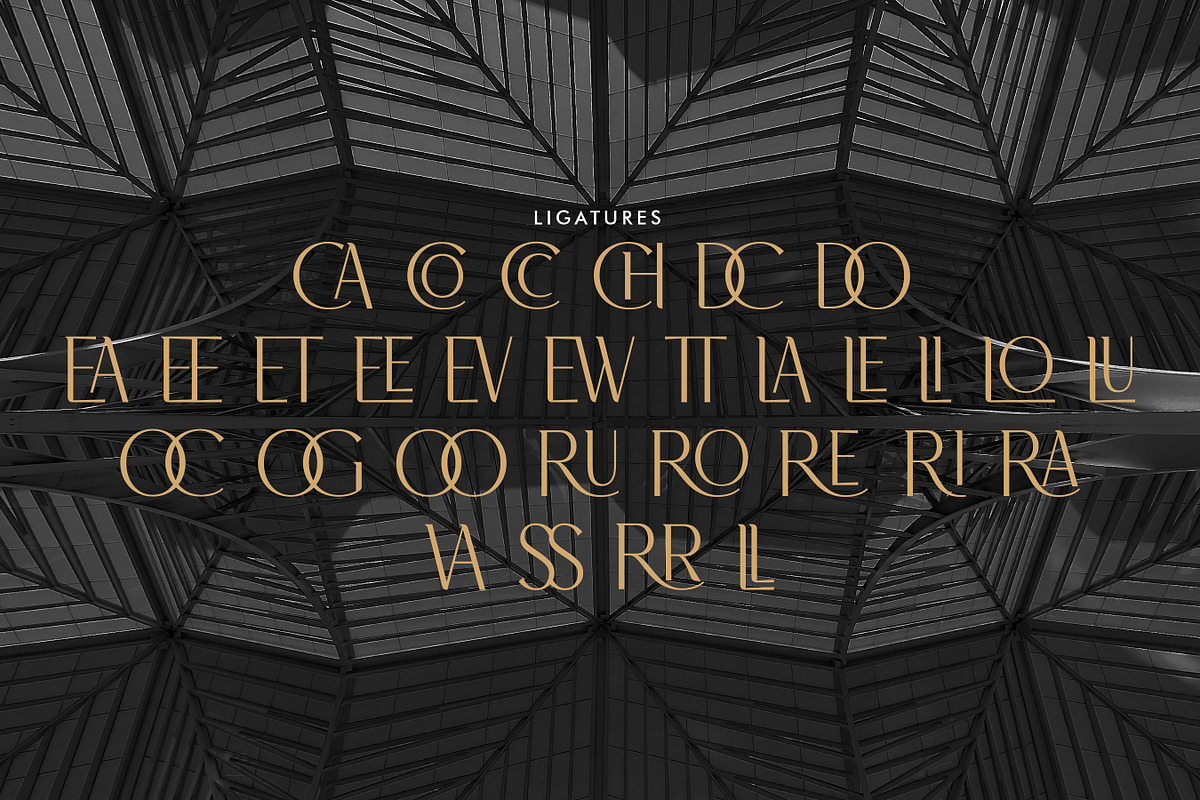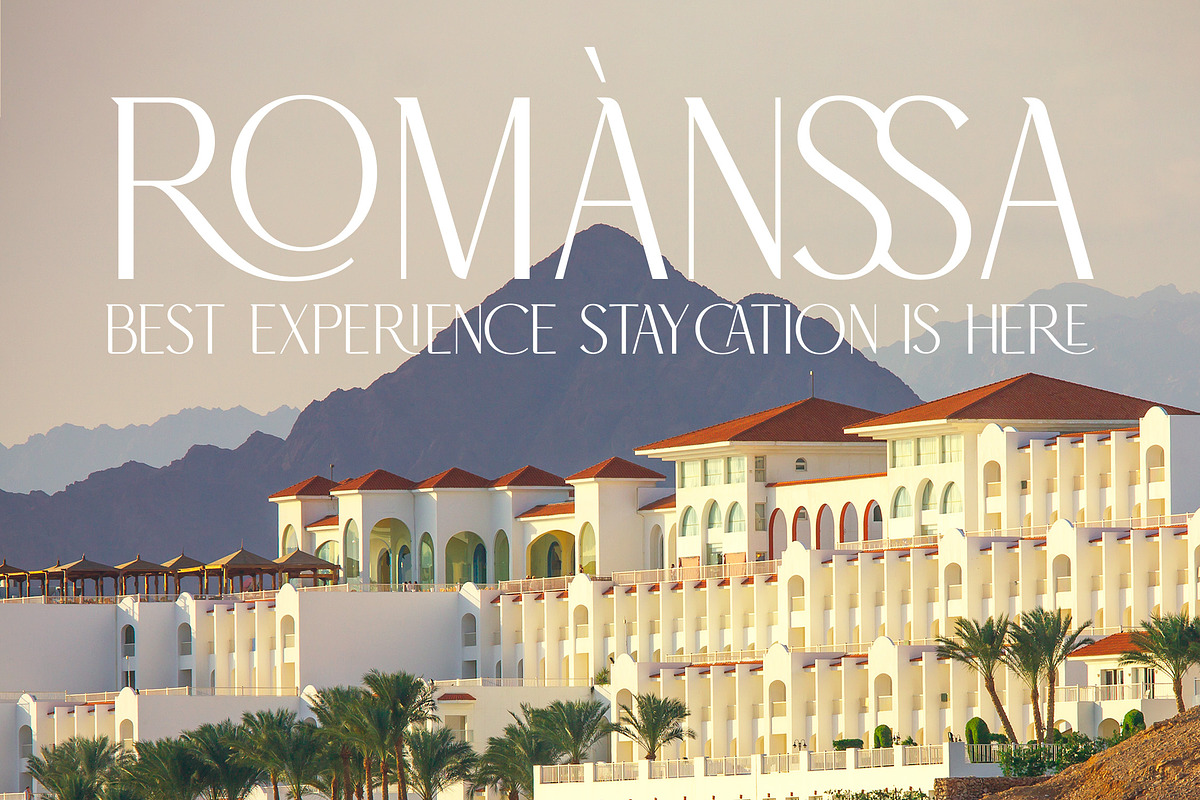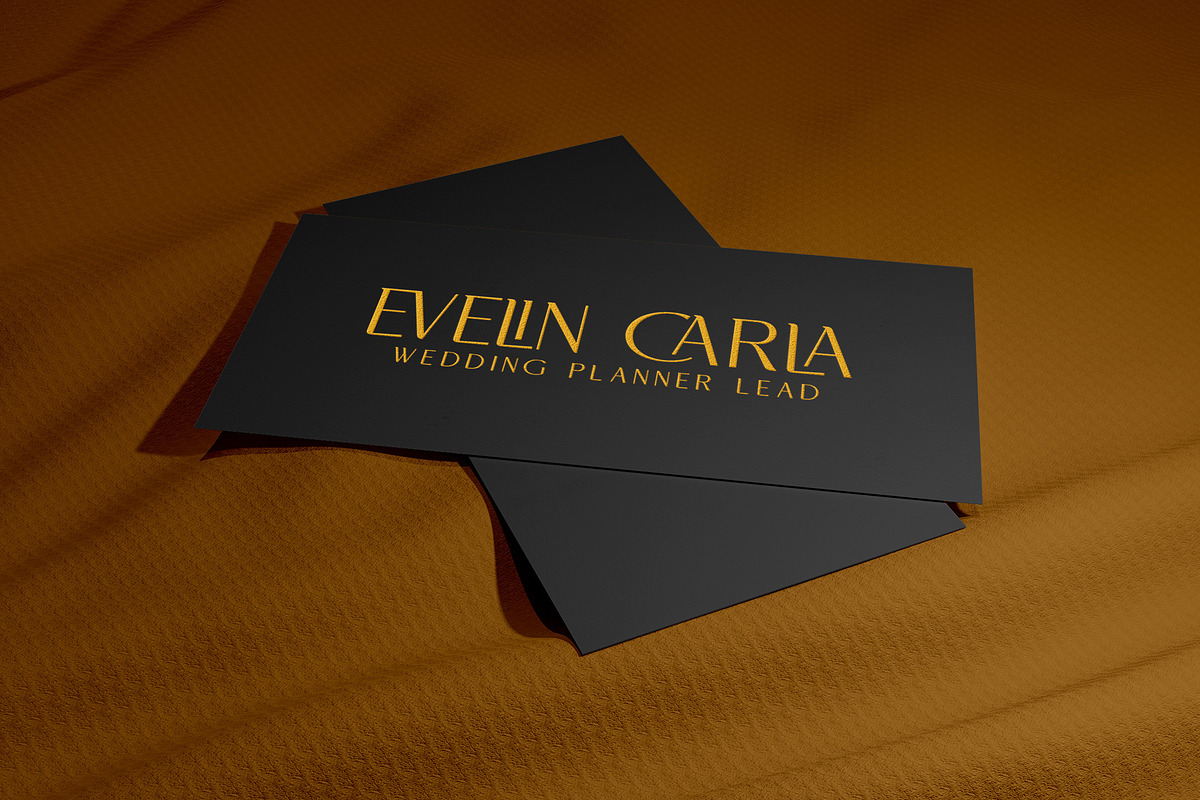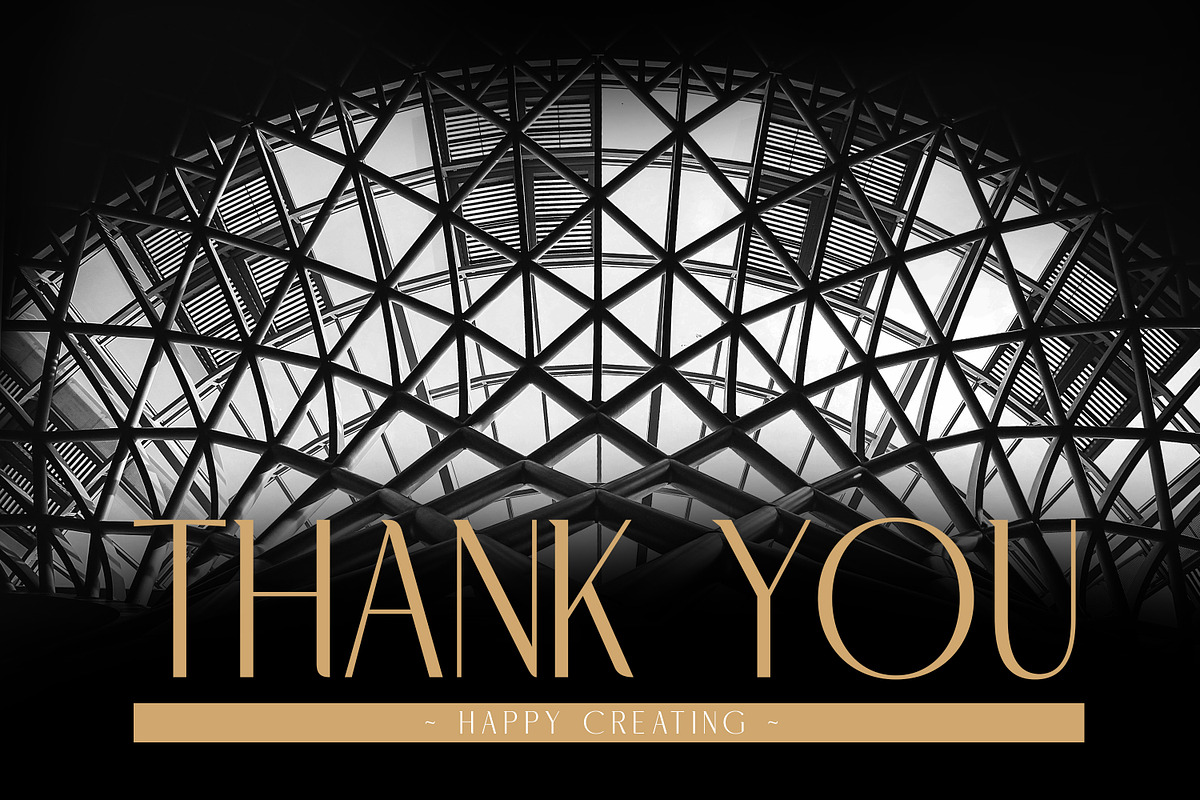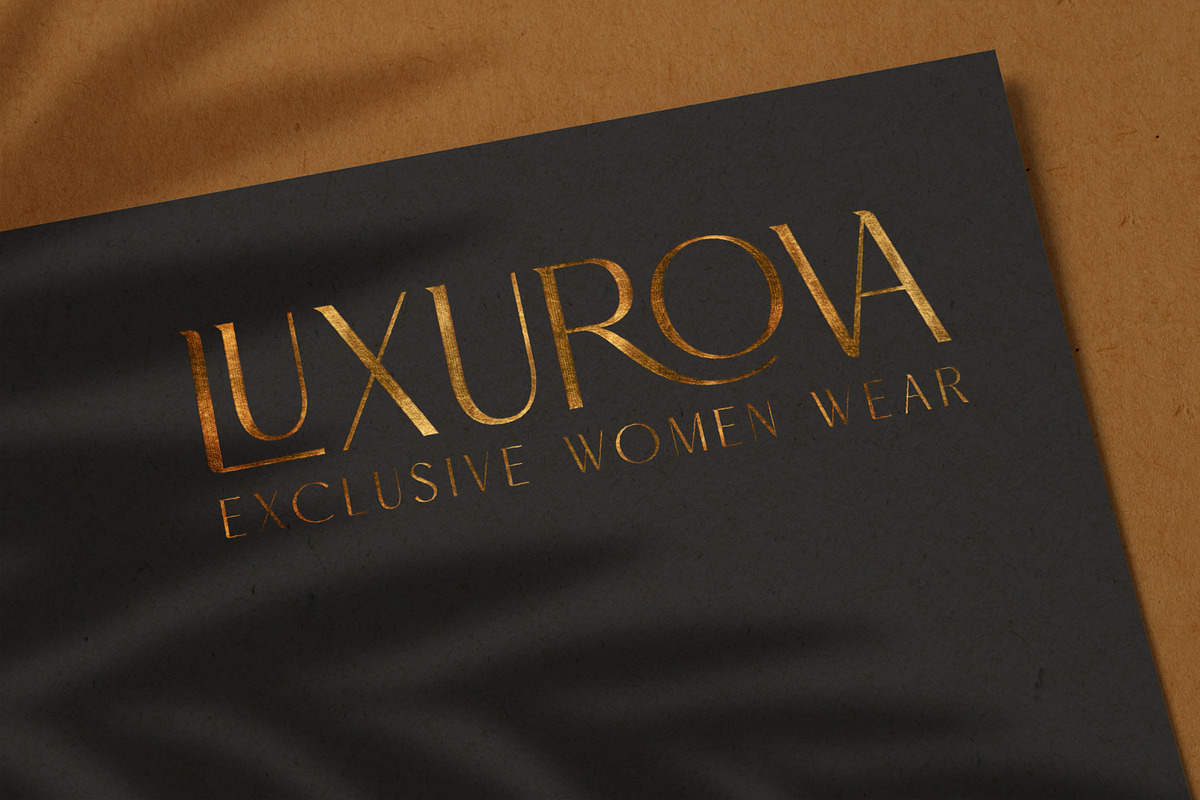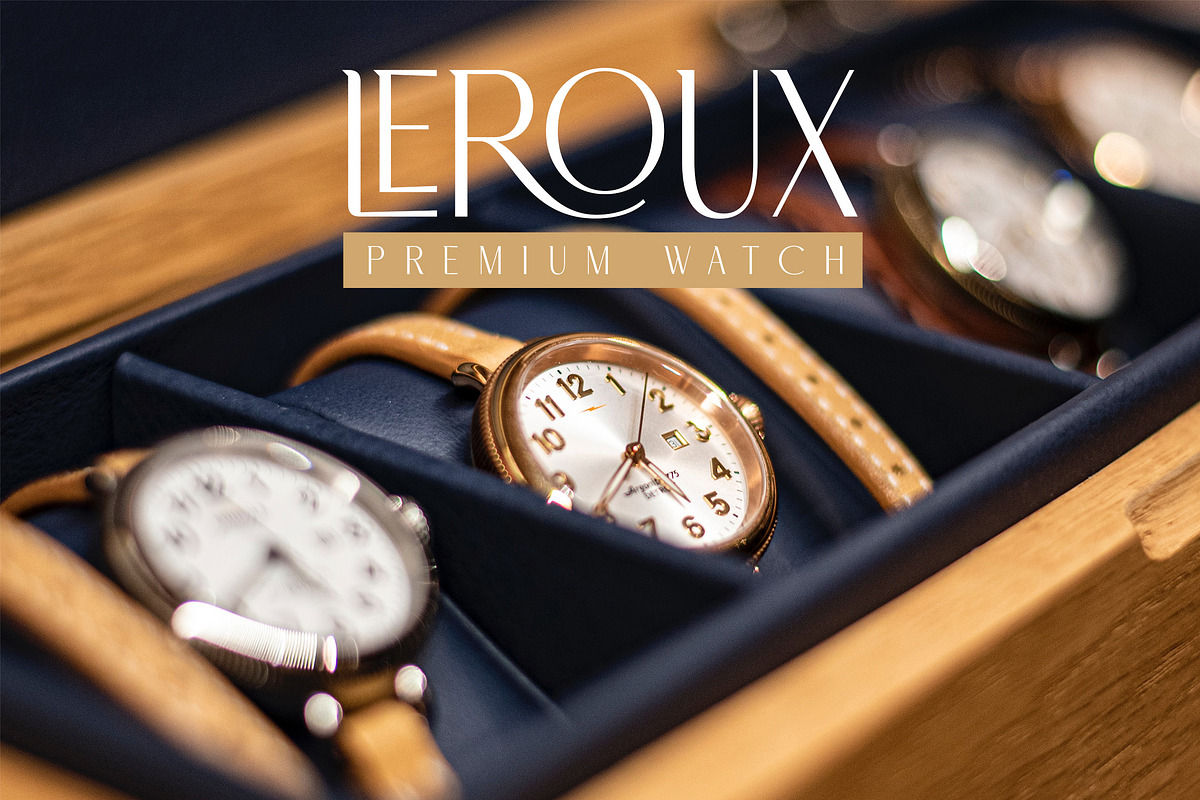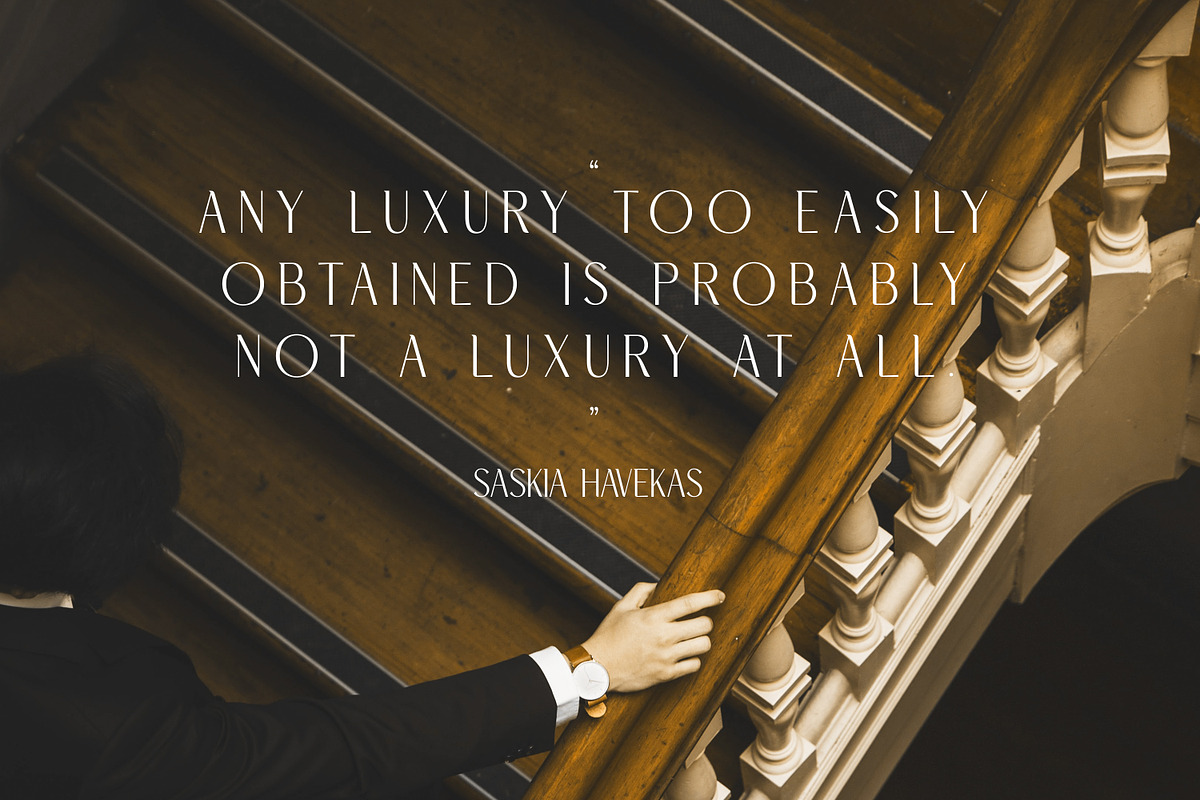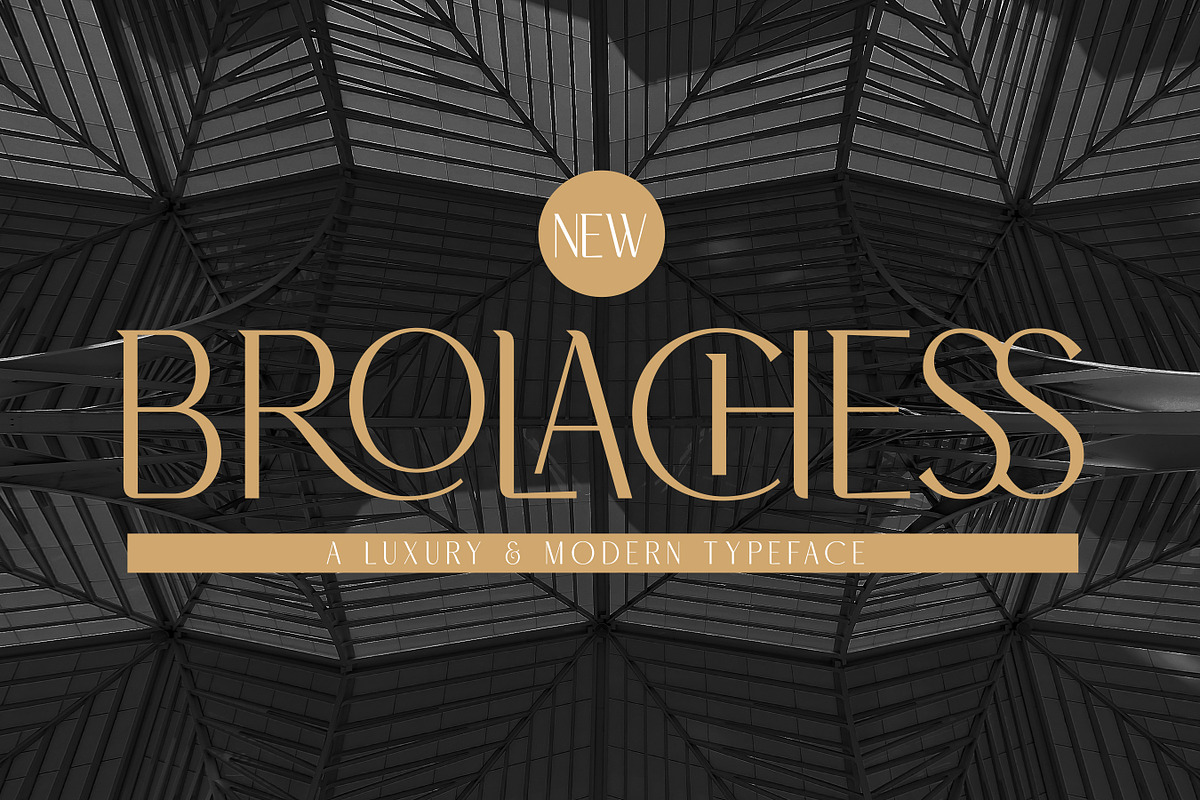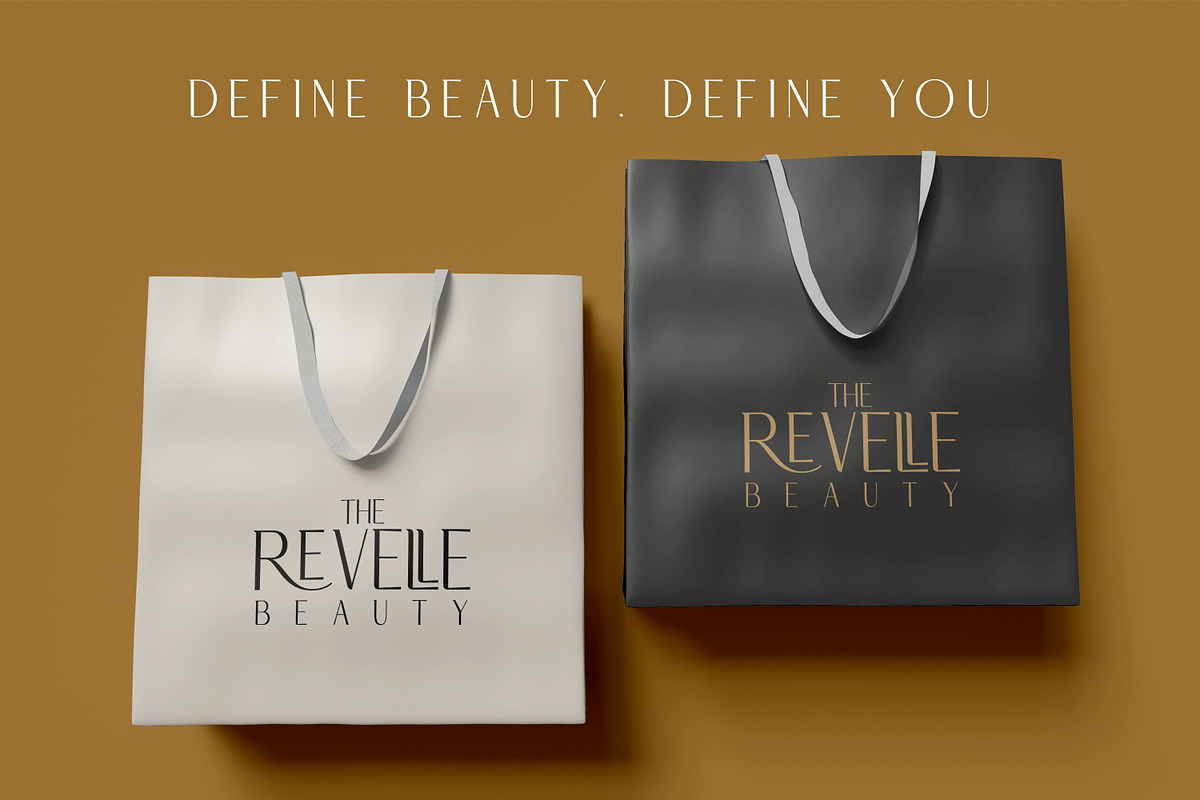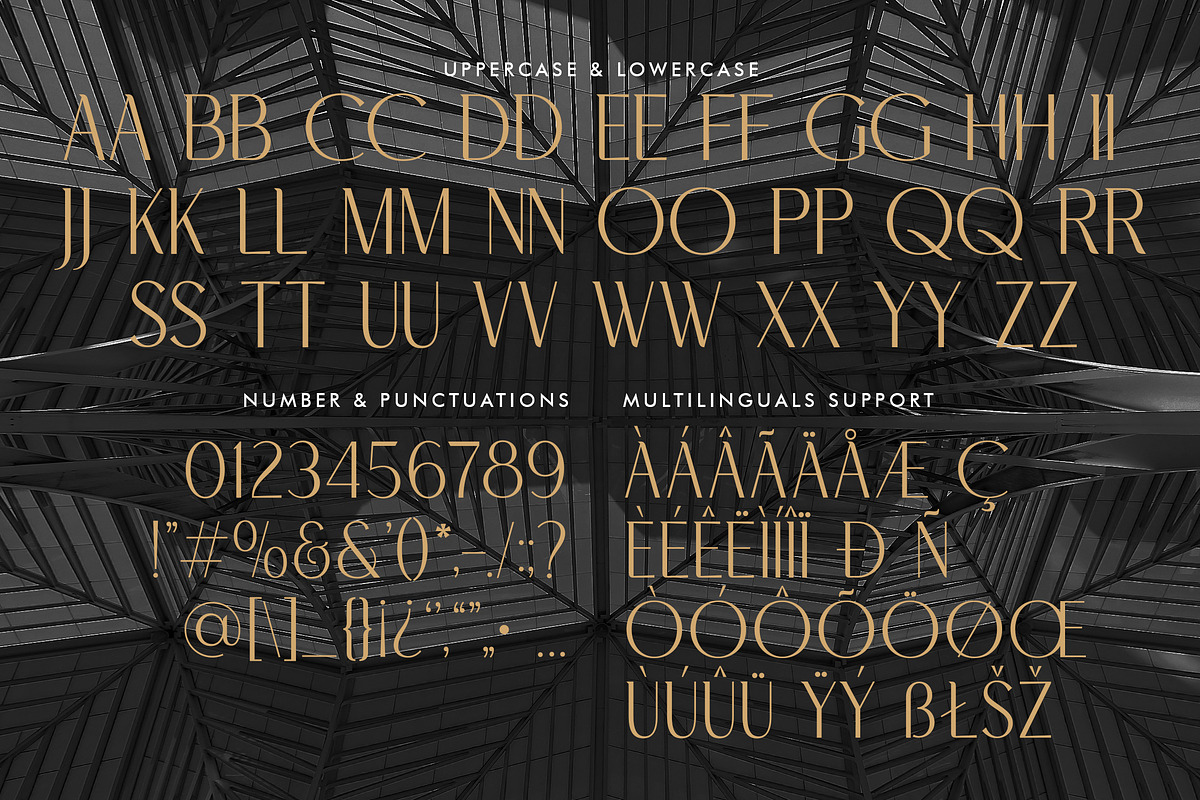
Brolachess - Luxury Ligatures Serif
Hello Introducing, Brolachess - Luxury Ligatures Serif is an elegant, unique font that uses 30 ligatures to smoothly link letters. inspired by the famous minimalist logo, perfect for the purposes of designing templates, brochures, videos, advertising branding, logos and more. Perfect for adding a unique twist to word-mark logos, monograms or pull quotes.